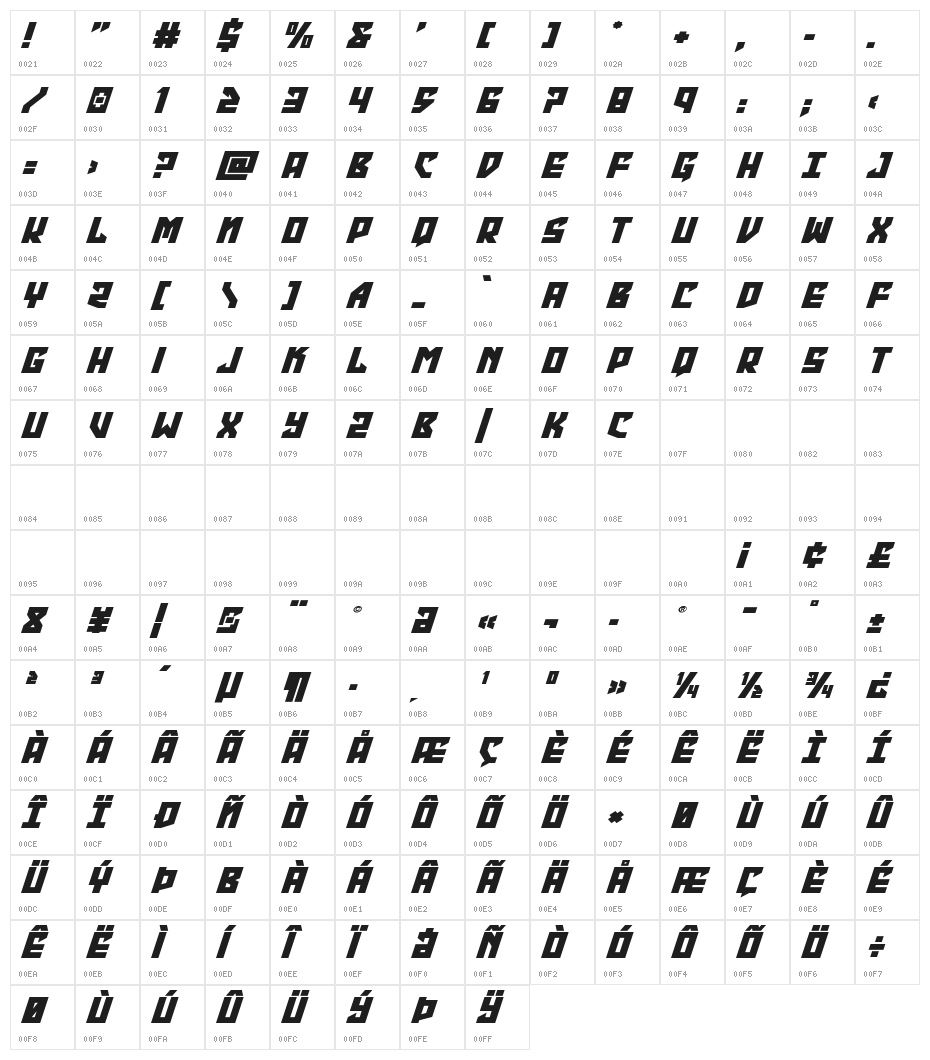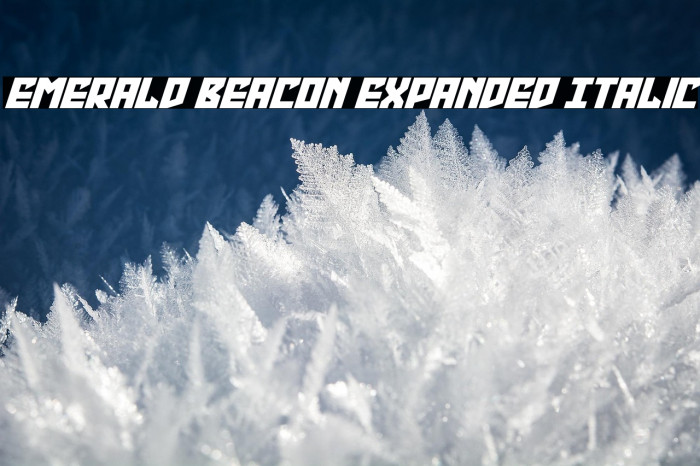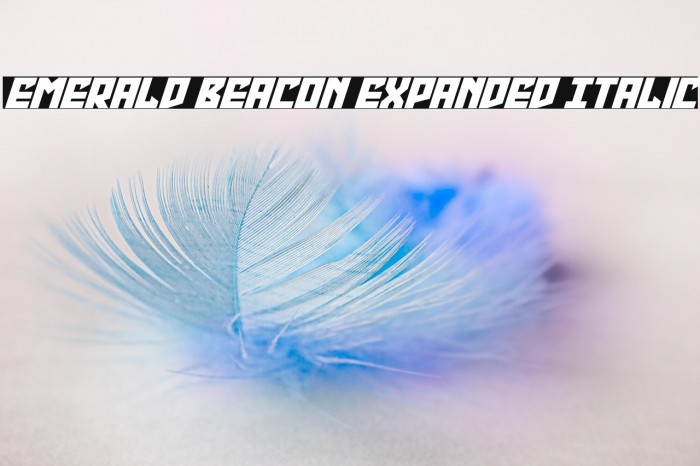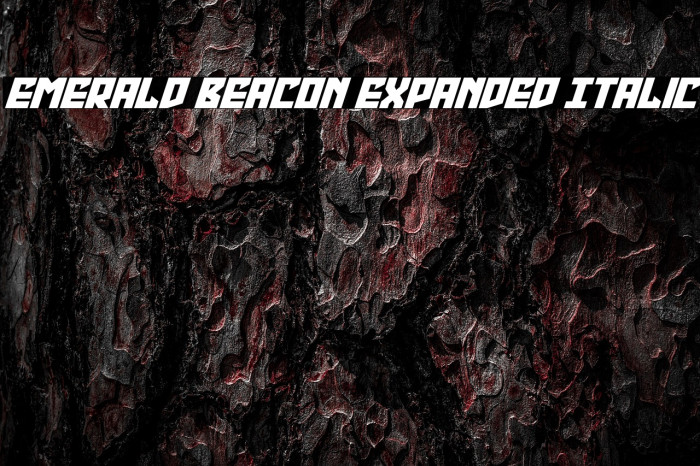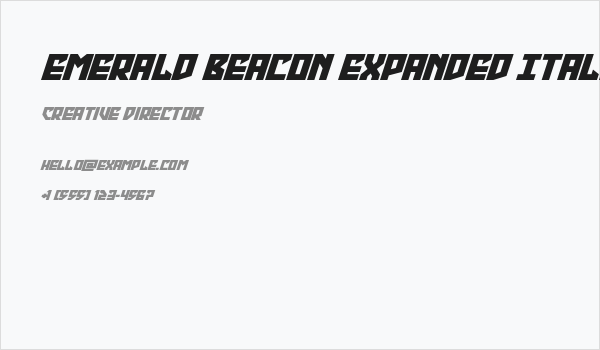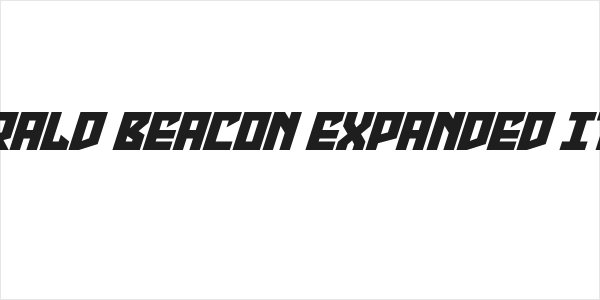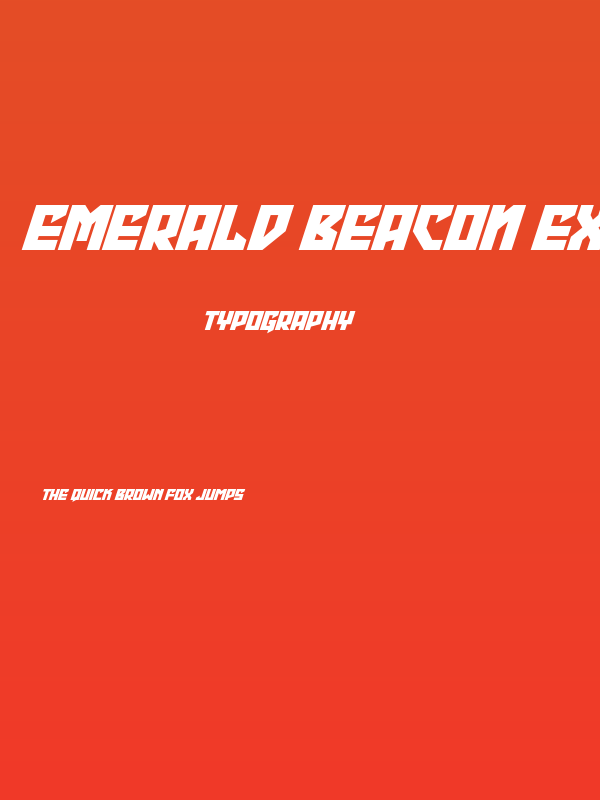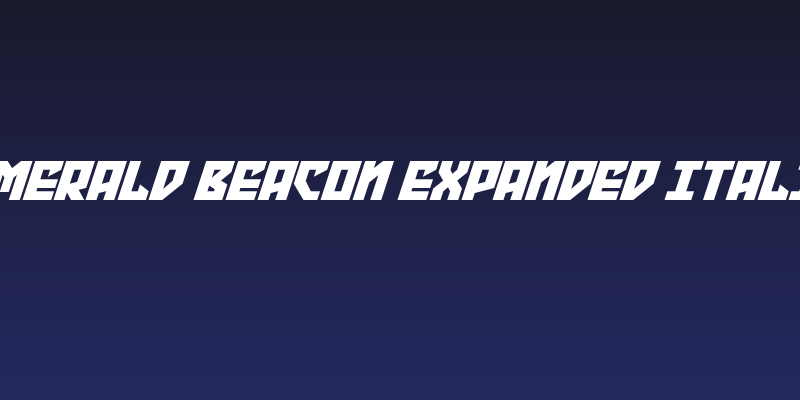
Emerald Beacon Expanded Italic Font
Emerald Beacon Expanded Italic Description
This font features a bold, angular design with a distinctly modern and futuristic aesthetic. The characters are sharply cut with geometric precision, giving them a dynamic and energetic appearance. The expanded width of the letters adds a sense of boldness and presence, making it ideal for attention-grabbing headlines or titles. The italic slant further enhances its forward-moving, progressive feel, suggesting speed and innovation. The numbers and special characters maintain the same stylistic elements, ensuring consistency across all text elements. This font is well-suited for projects that require a strong, impactful visual statement.
| Proposed Projects | Ideal for sci-fi themed designs, video game titles, tech branding, and dynamic posters. |